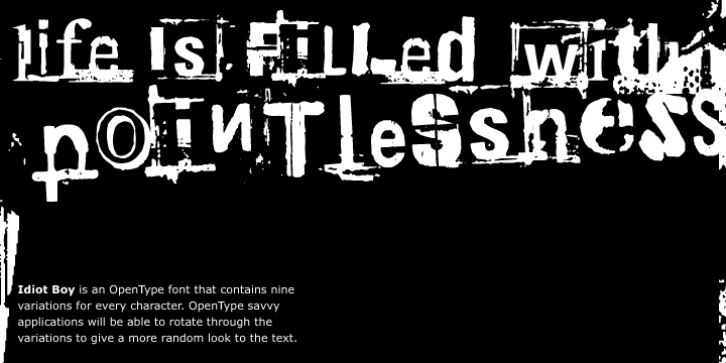
Idiot Boy downloadDesigner: Michael Wallner
Publisher: The Type Fetish
Idiot Boy was inspired and named after a design by Huw Morgan from the book Typographics 1. Idiot Boy is built from The Type Fetish’s distressed collection of fonts, including a few that have never been released.
The OpenType version contains eight alternative glyphs for each character within the single font file. The TrueType version offers nine different fonts, each with a unique variation of the character in its character set.